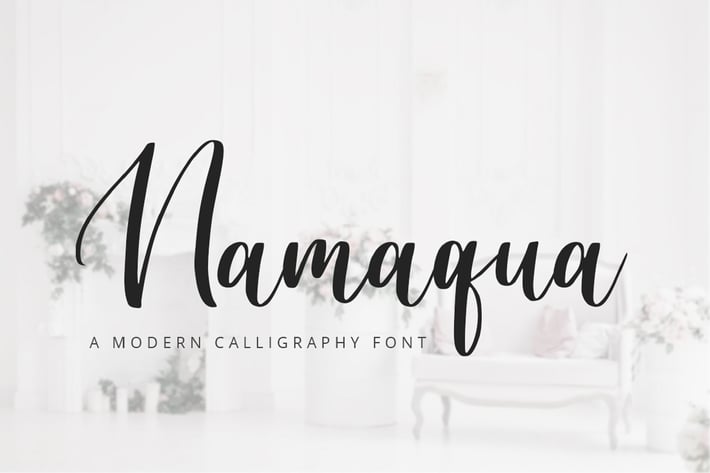
Namaqua - Modern Calligraphy Font
Escape to the bliss of the Namaqualand. A landscape carpeted in wildflowers and magical star-studded nights. Where visitors come from all over the world to experience the cacophony of nature in its purest form.
Introducing Namaqua - A Modern Calligraphy Font.
This gorgeous font can be used for a host of different content needs and projects. Use it for your headings, logos, business cards, printed quotes, invitations, packaging, resumes, and even your website or social media branding.
Enchant your audience, clients or guests with this versatile, elegant font.
Multilingual & Ligature Support
Full sets of Punctuation and Numerals